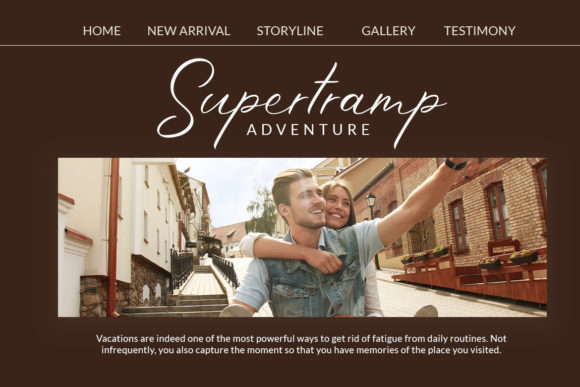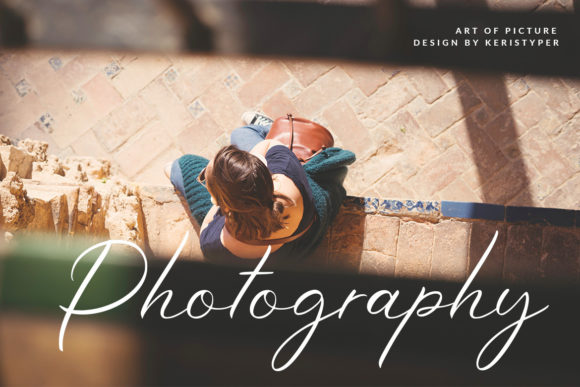
Giomonte Font
db-ku.com - Script & Handwritten -- Giomonte is a beautiful script font that feels classy, elegant, and modern. This type of font is perfectly made to be applied especially in logos, magazines, books, greeting/wedding cards, packaging, fashion, makeup, stationery, novels, labels, or any other type of advertising purpose.